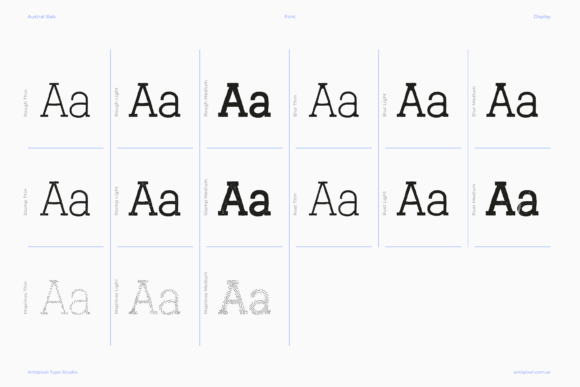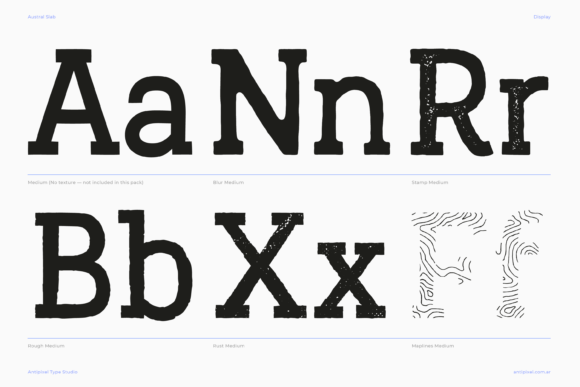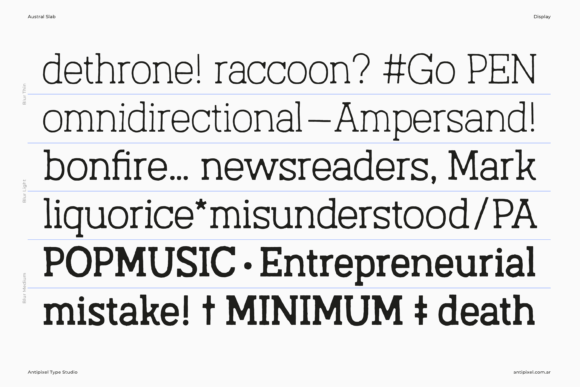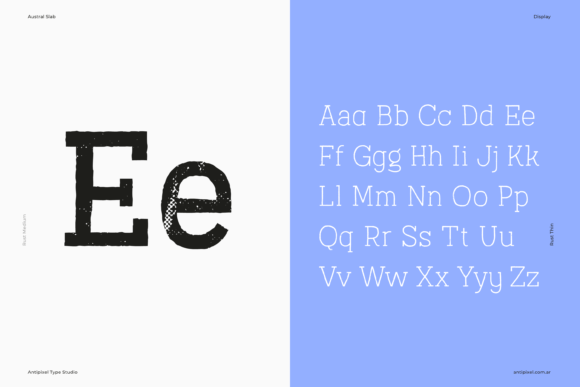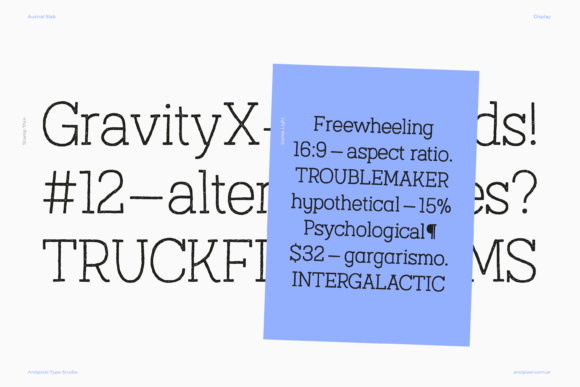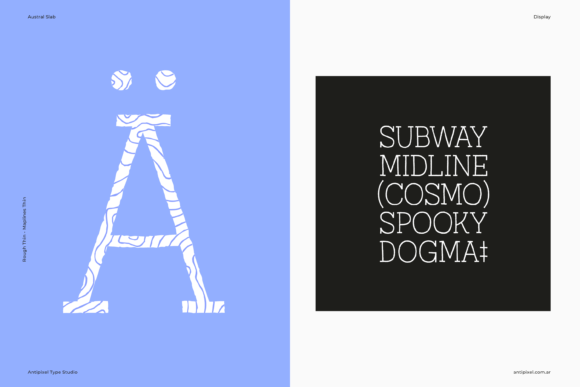
The Perfect Typography Companion for Designers
Have you ever been working on a project and stumbled upon the perfect font, but it’s missing that special something? Maybe it’s a little too clean or too boring. That’s when I remember the thrill of discovering Austral Slab Textures Font – a hand-drawn layered type family that adds a unique touch to any design.
Austral Slab Textures Font is designed to be casual, robust, and spirited, making it perfect for a wide range of projects. With its monolinear spirit and irregular stems, it’s a versatile choice for designers looking to add some character to their work. The font’s texture options, such as Blur, Rough, Rust, and Stamp, offer endless possibilities for creative expression.
Whether you’re a seasoned designer or just starting out, Austral Slab Textures Font is a valuable addition to your toolkit. Its latest update in 2024 brings even more features and improvements, making it an exciting choice for designers looking to elevate their work.
Austral Slab Textures Font Key Features
- Font Family: Austral Slab Textures – a unique, hand-drawn slab serif font with a textured look.
- Size: The font family includes 12 styles, ranging from Thin to Black, with 4 weights and 3 styles for each weight.
- Unique Characteristics: The Austral Slab Textures font features a distressed, textured look, with subtle imperfections and irregularities that give it a hand-crafted feel.
Austral Slab Textures Font Review
I’ve had the chance to work with the Austral Slab Textures Font, and here’s my honest take. ✨ One thing that really stands out is the level of customization it offers. You can adjust the texture and slab effects to fit your design needs. It’s also quite versatile, working well for both digital and print projects. The font is available in various weights, making it easy to choose the perfect one for your project.
Another positive aspect is the high-quality texture overlays that come with the font. These overlays add an extra layer of depth to your design, making it feel more premium. The font also supports a wide range of languages, making it a great choice for global projects.
What Doesn’t Work So Well
- ⚠️ Limited character set: While the font supports a wide range of languages, it’s still missing some characters and symbols that might be essential for certain projects.
- ⚠️ Not ideal for small text: The font’s texture effects can make small text hard to read. You might need to adjust the size or use a different font for smaller text.
Overall, I think the Austral Slab Textures Font is a great addition to any designer’s toolkit. Its level of customization, versatility, and high-quality texture overlays make it a great choice for a wide range of projects. However, it’s not perfect, and you might need to work around some limitations. If you’re looking for a font that can add some texture and depth to your designs, the Austral Slab Textures Font is definitely worth considering.
Tips for Getting the Most Out of Austral Slab Textures Font
Use Austral Slab Textures Font for:
- Headings and titles to add a rustic touch.
- Body text to create a unique and personalized look.
- Branding and marketing materials to stand out from the crowd.
Austral Slab Textures Font is commonly used for:
- Outdoor and adventure branding.
- Choose a background image of worn leather or aged paper to create a vintage atmosphere.
- Use the font to typeset the book title in a distressed, embossed style to match the texture of the background image.
- Combine with other design elements like vintage-style illustrations or ornaments to enhance the rustic feel.
- Use a combination of bold and italic font styles to create visual interest.
- Experiment with different textures and patterns to add depth and dimension.
4. InterProject Ideas Using Austral Slab Textures Font
Rustic Book Cover Design
Create a vintage-inspired book cover design using the Austral Slab Textures Font. This font’s distressed texture will add a charming, aged feel to your book cover.
To use Austral Slab Textures Font in this project:
Rustic Sign Design
Create a rustic sign design using the Austral Slab Textures Font. This font’s textured look will add a warm, inviting feel to your sign.